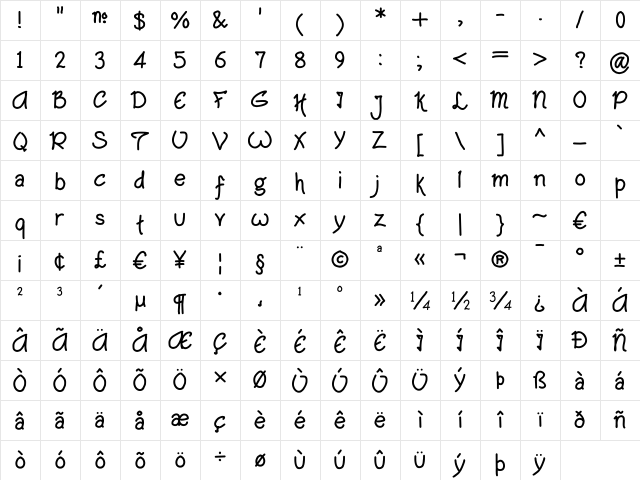
Zoophel Regular Free Font
Zoophel Regular
Foundry: HT
Designer: HT
Design Context for Zoophel
Zoophel is a composed and adaptable typeface that performs quietly and consistently across a wide range of design contexts.